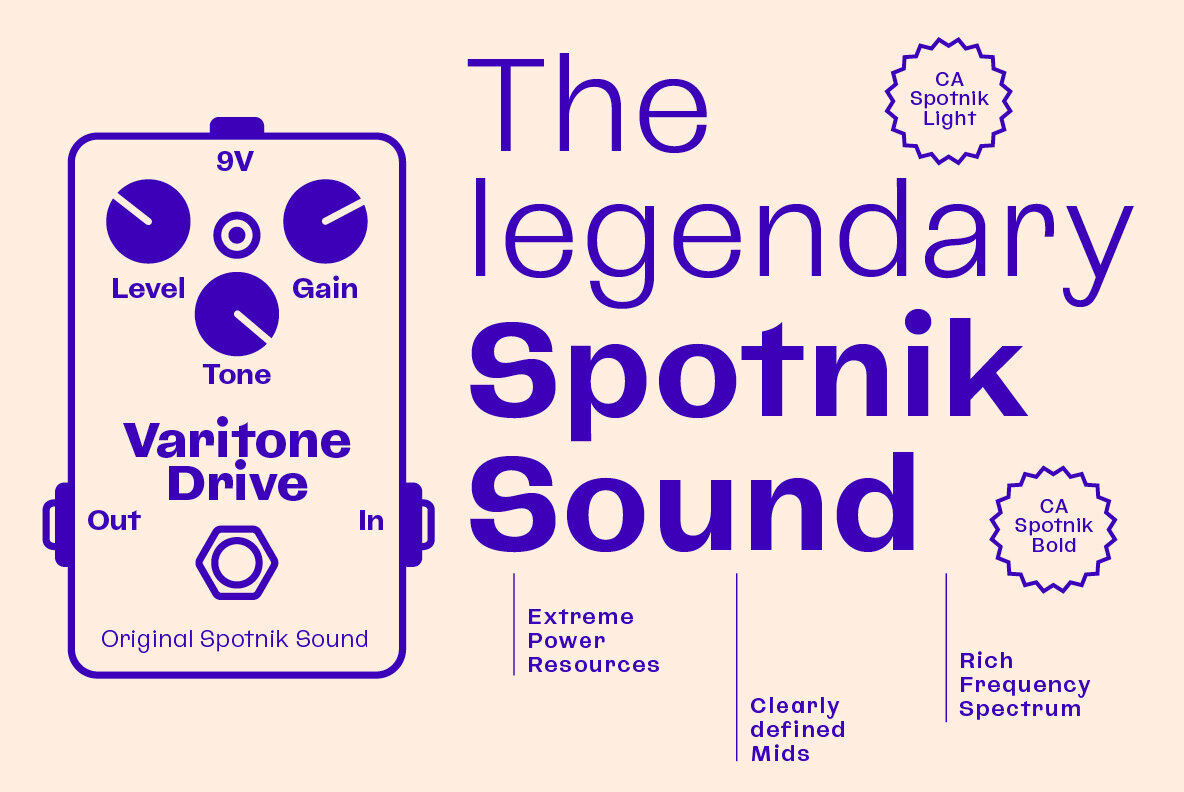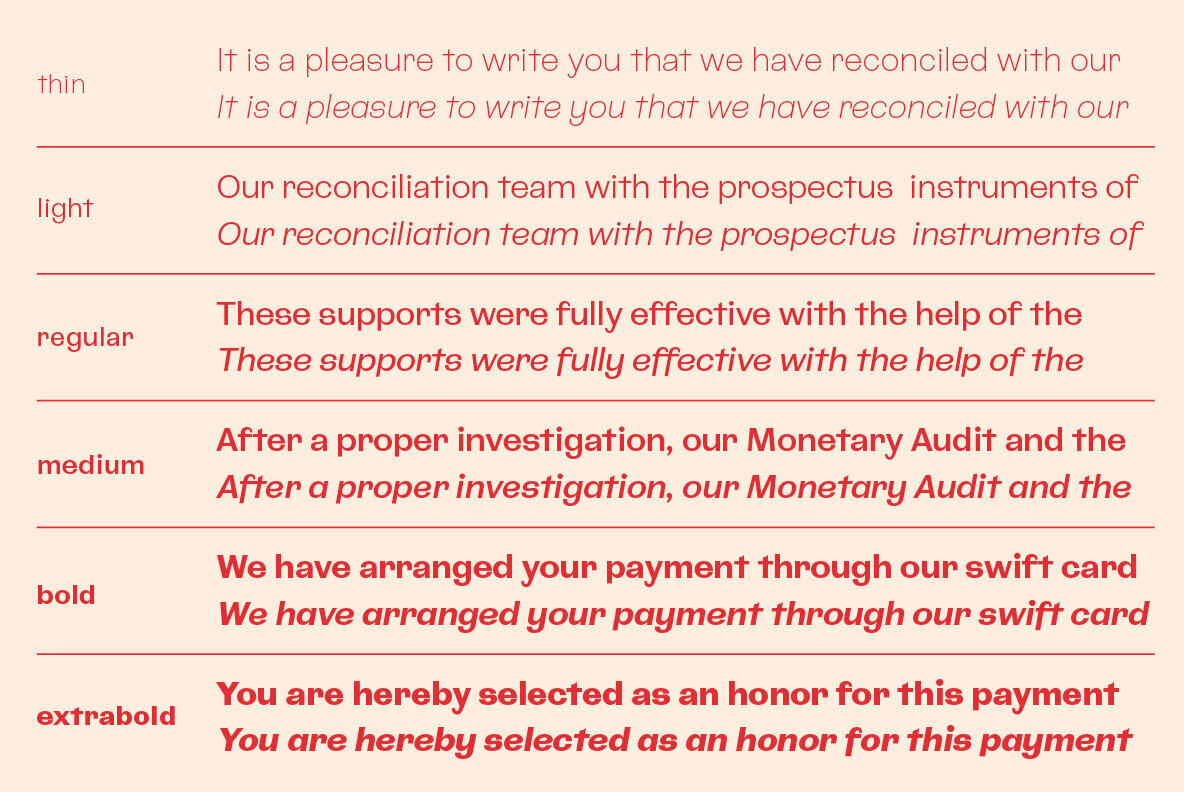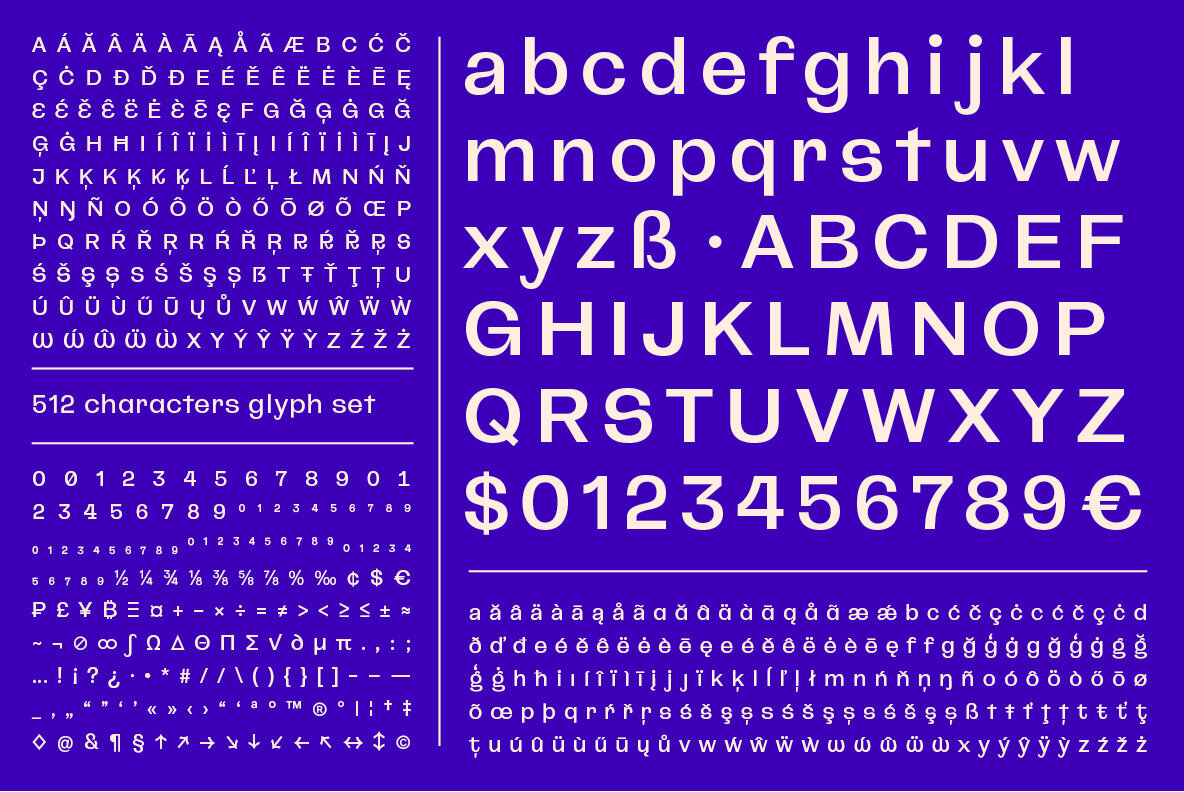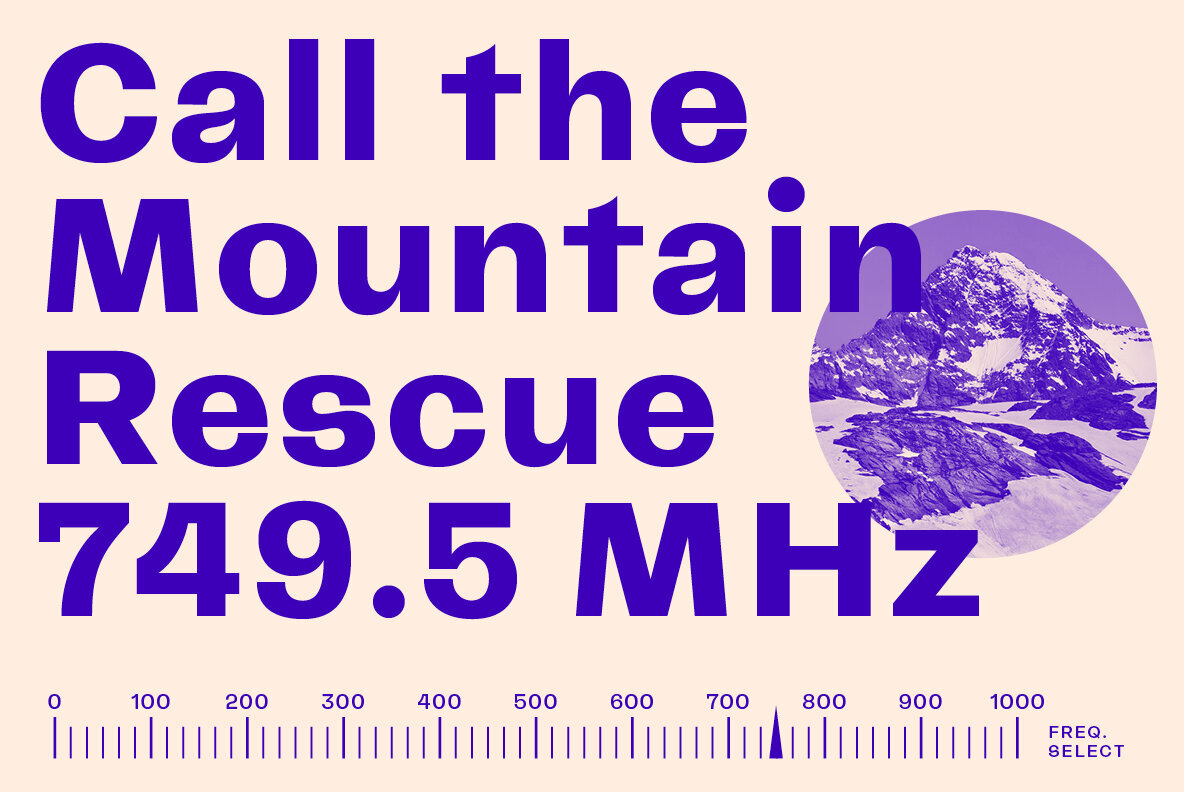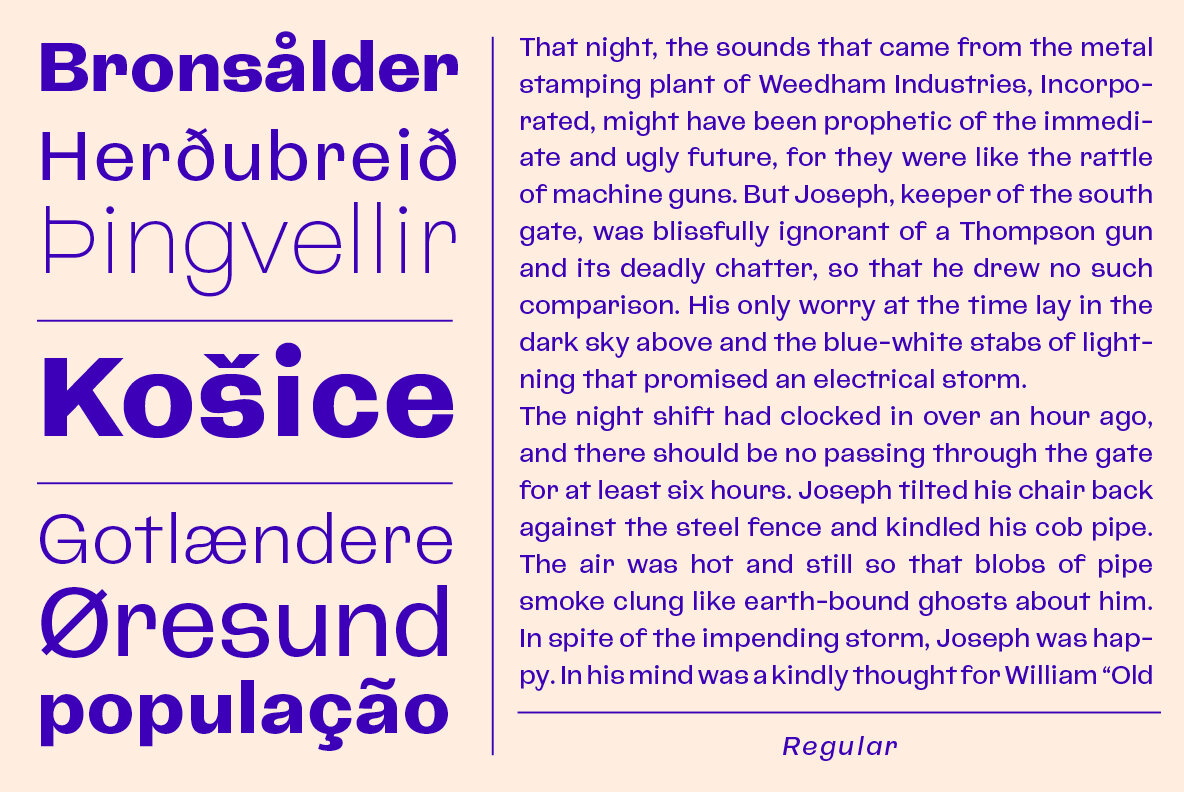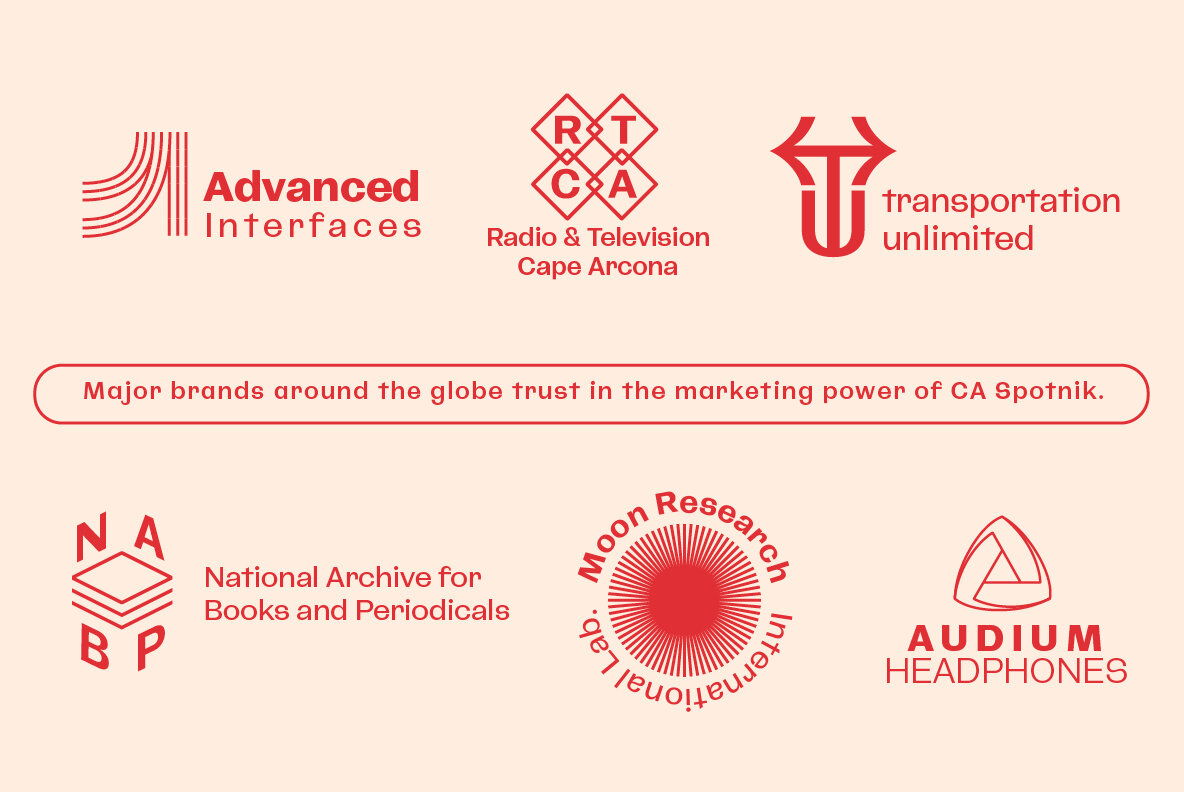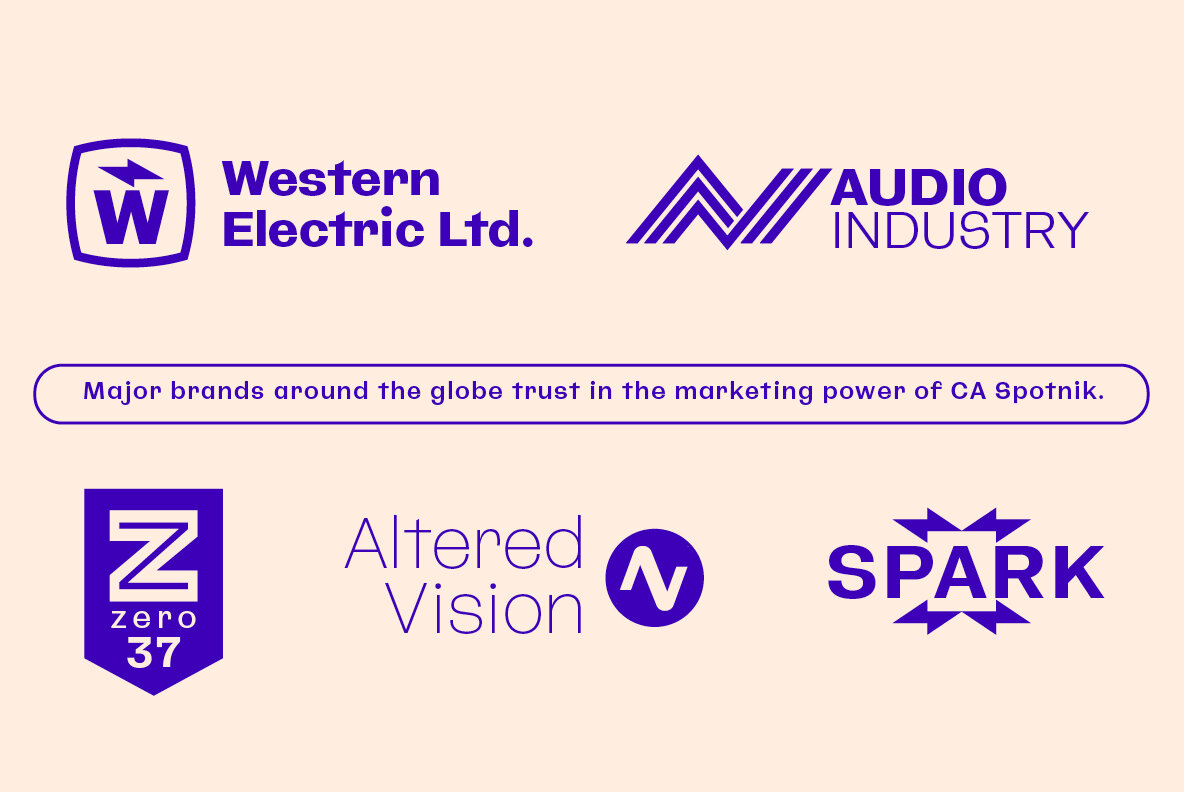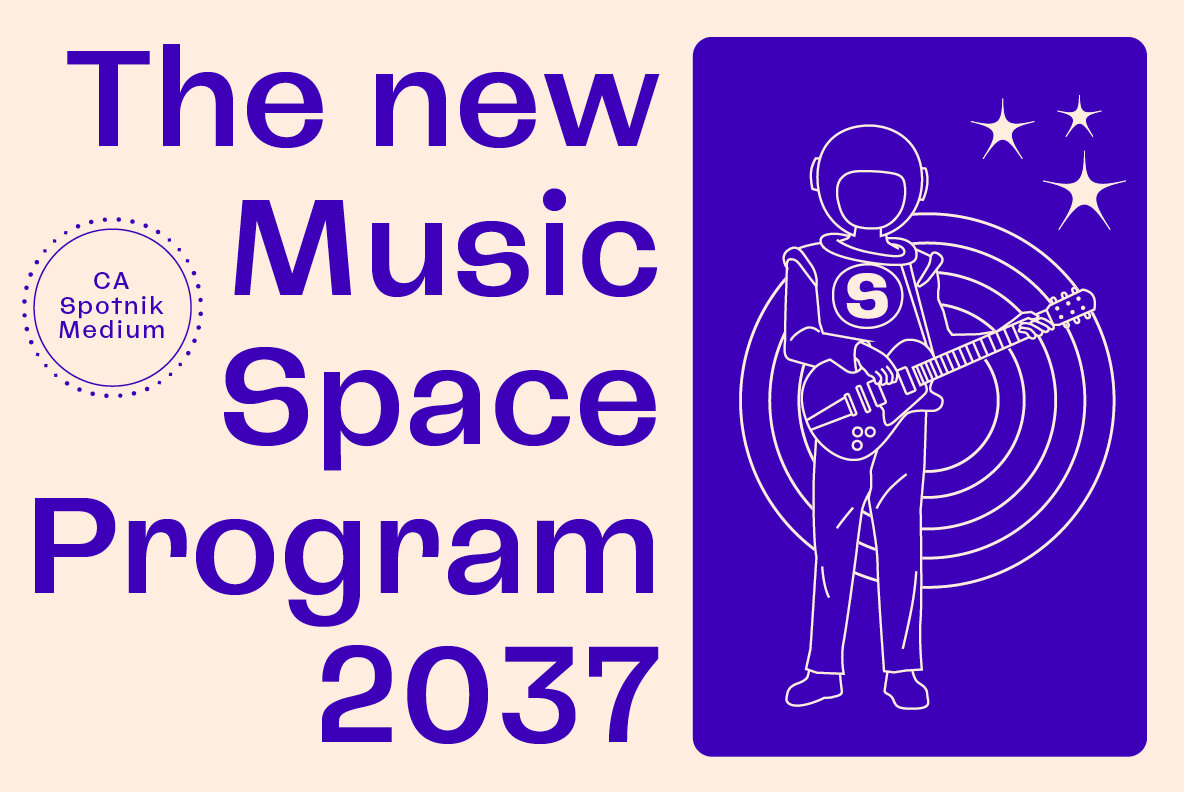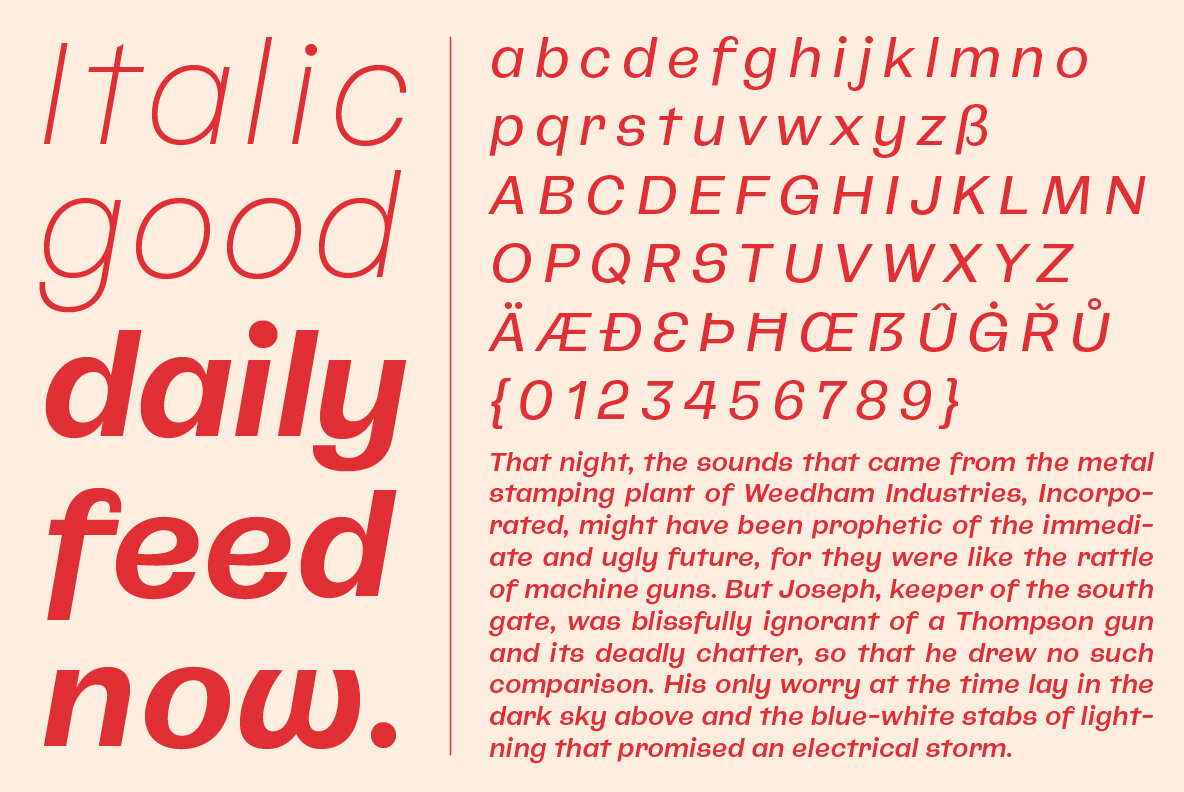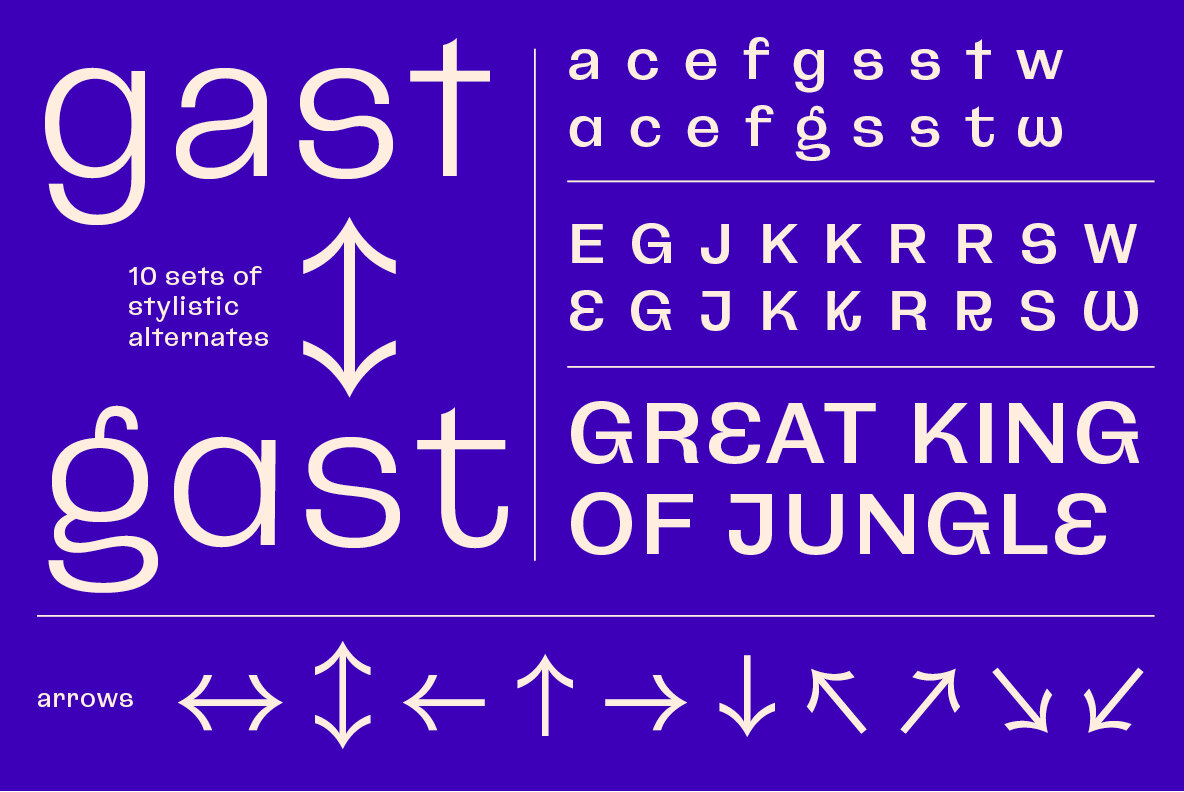
CA Spotnik Font
The initial inspiration for CA Spotnik was the opening title of an early Andrei Tarkovsky movie. There was this very unconventional hand drawn “s” which drew my attention. Despite its strange shape, it felt totally natural in that context. So we made a few screenshots and started to sketch some more letters in order to catch the spirit that attracted us so much. The result is a grotesque typeface with a slight contrast, the proportions are rather wide with a large x-height.
The bolder the weight, the wider it gets. In case you find the swirly “s” uncomfortable, there is a standard s included as well. The general atmosphere of the typeface, which could be described as “nerdy but friendly” doesn’t depend on this detail. It’s rather the sum of details derived from the original inspiration.
If you want to say goodbye to tristesse, say hello to Spotnik.